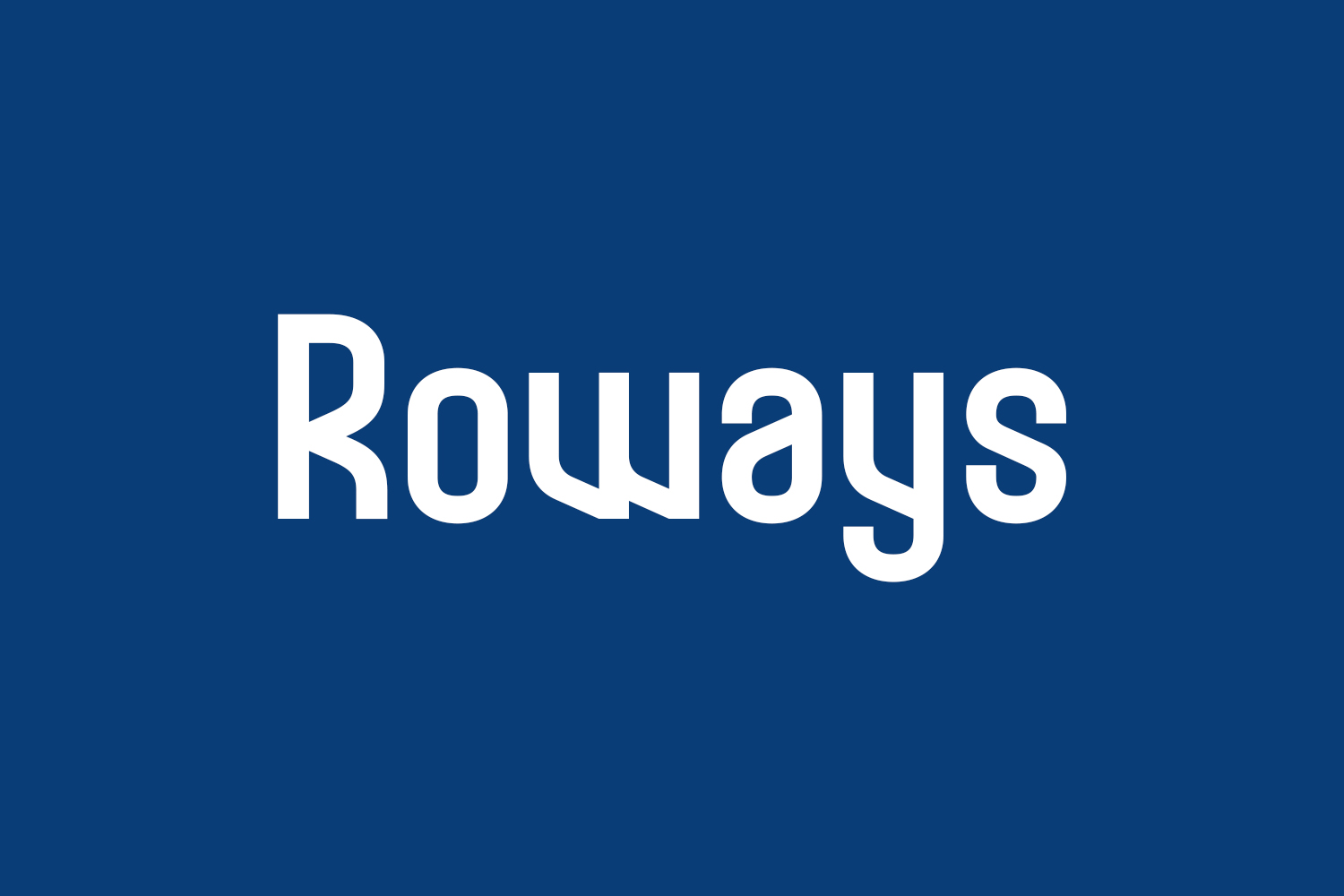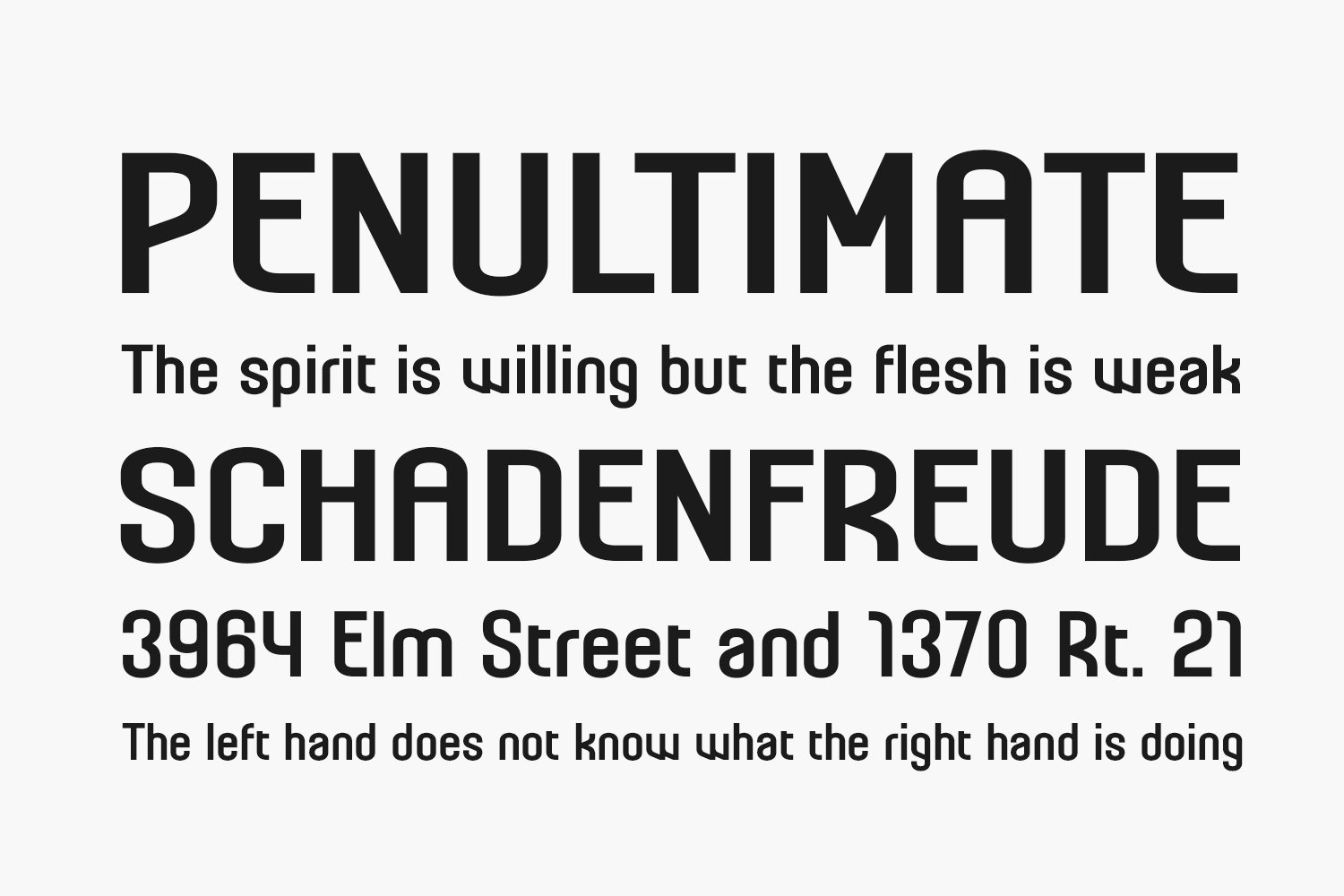
Elevate your projects with Roways Free Font, a contemporary and chic sans-serif font. Versatile and stylish, Roways is the perfect addition to your font collection, amplifying the impact of any design across various topics and themes. Download the font for free if you need it for personal use or purchase the full version for commercial use.